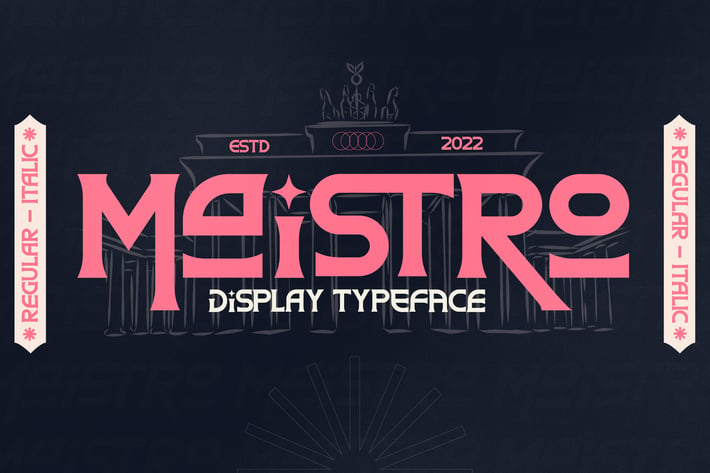
Maistro Modern Display Typeface
Hondelante Signature is a sleek and sophisticated modern handwritten font that perfectly captures the elegance of a personal signature. With its flowing lines and graceful curves, this typeface radiates confidence, class, and modern charm — ideal for projects that need a refined handwritten touch.
Elegant and modern signature style
Smooth handwriting flow with natural ligatures
Stylish letter connections for a professional finish
PUA encoded for easy access to alternates
Multilingual support for global use
Optimized for both digital and print media
Branding and logo design
Fashion and lifestyle visuals
Wedding invitations and stationery
Social media graphics and personal quotes
Business cards and product packaging
* Editorial or beauty-related projects
Elegant, modern, and effortlessly stylish — Hondelante Signature gives every design a luxurious handwritten flair.
Design by LS